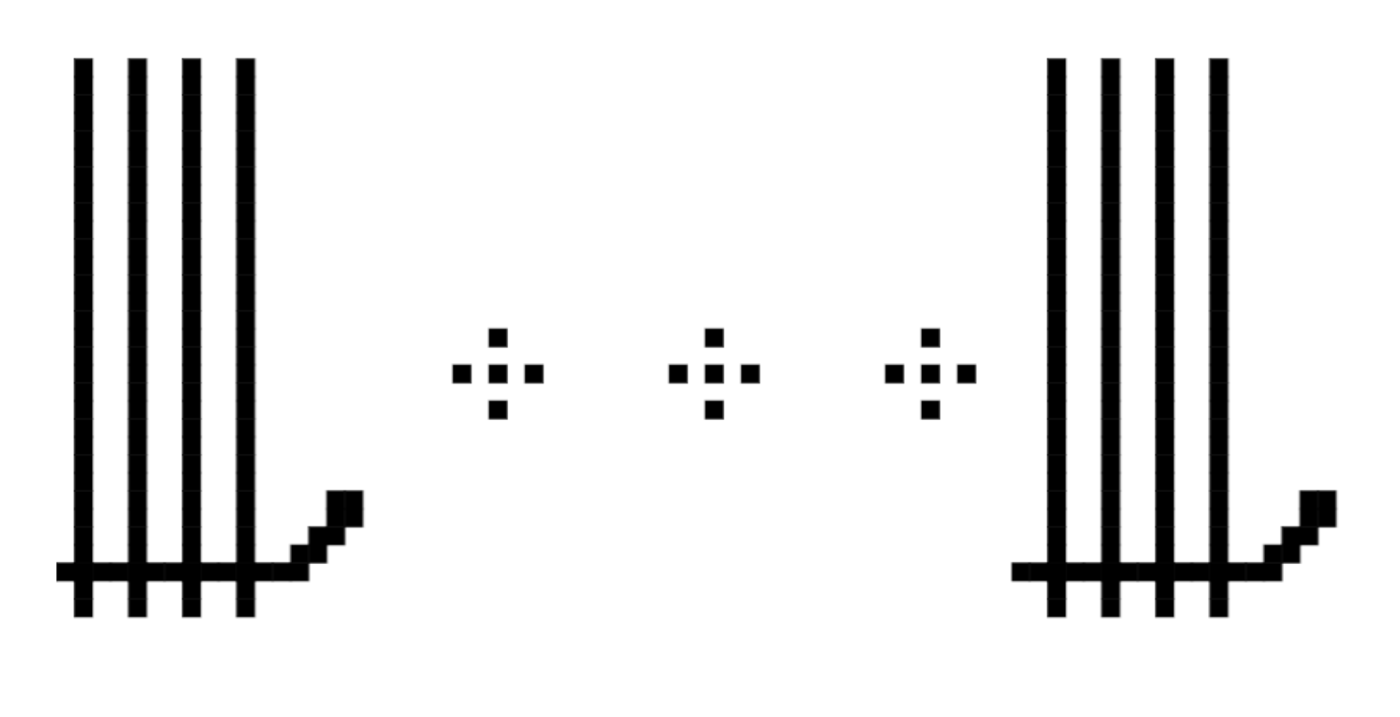
• A viking rune style font. Featuring tallying as a bonus with full stops ans comas, as well as roman numerals instead of the Arabic numerals.
Random feature: Tallying using full stops and comas.